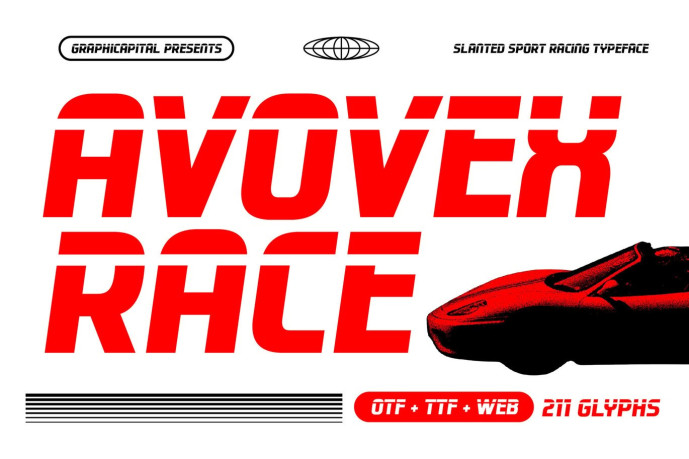
Avovex Race Font is a bold, slanted, and display typeface. Inspired by motorsport, supercars, formula racing, and futuristic automotive design. This typeface features aggressive slanted letterforms, aerodynamic cuts, and geometric curves that create a powerful sense of speed and precision.
Ideal for branding, posters, headlines, packaging, album art, game visuals, and promotional designs. It adds personality to any creative project and helps your message stand out effortlessly.